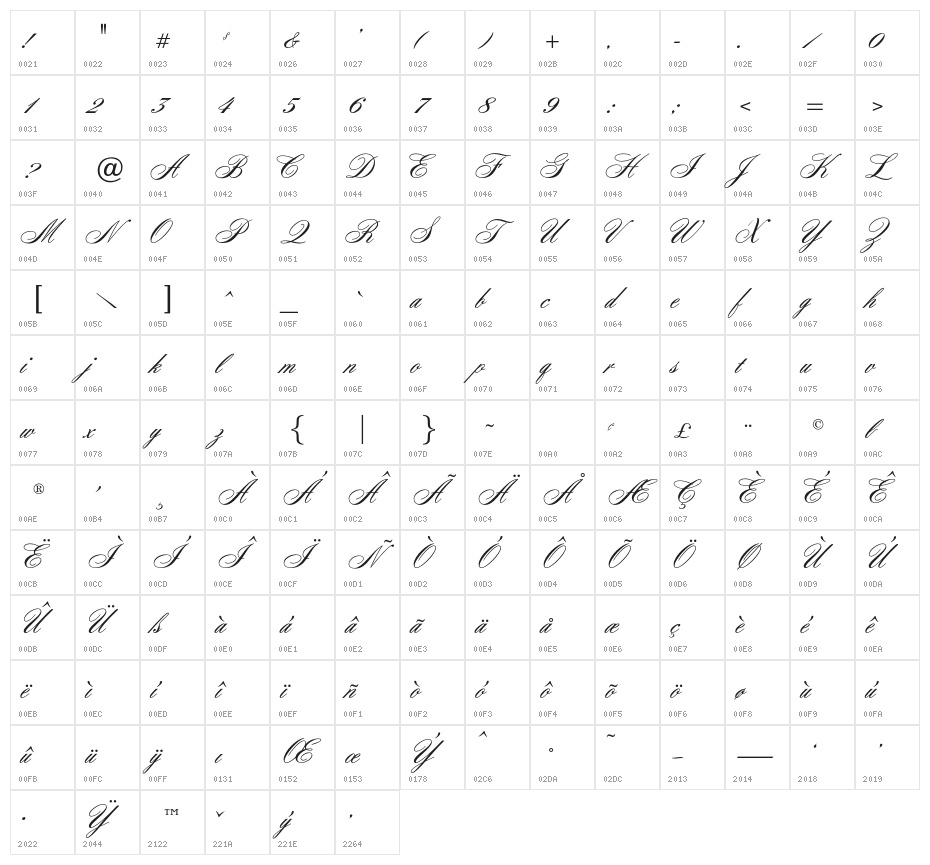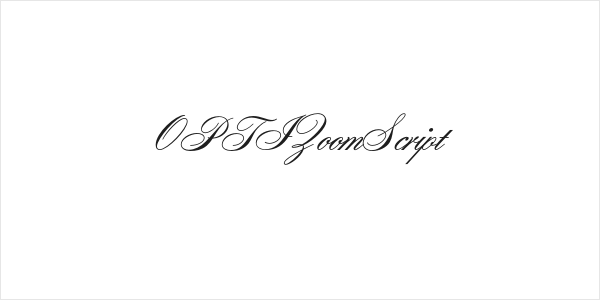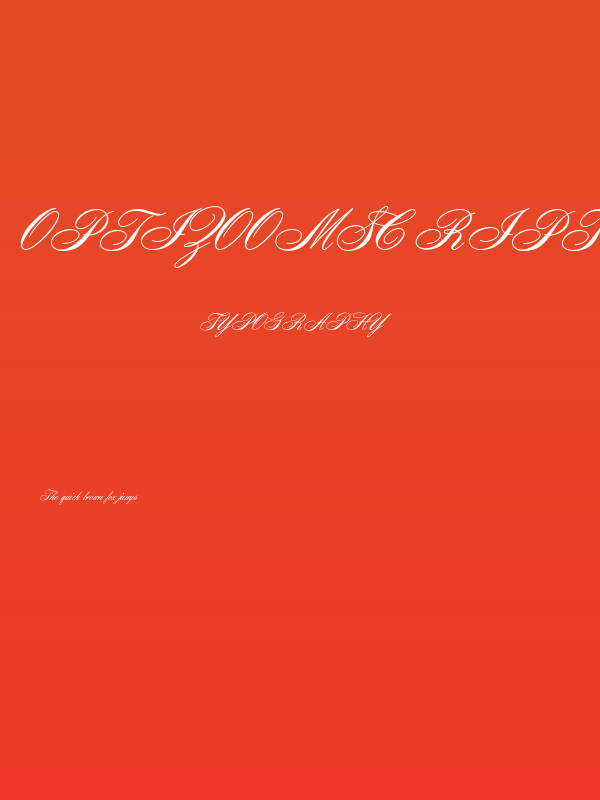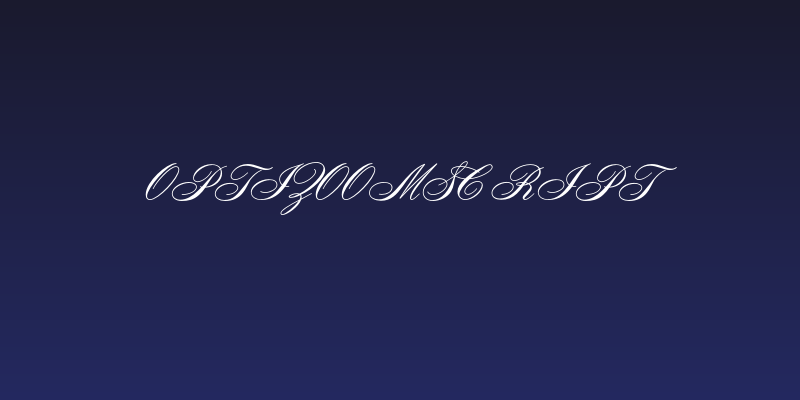
OPTIZoomScript Font
| Kategorien | Script |
| Gesamtstil | Classic |
| Anwendungsfall | Logos, Invitations, Decorative text |
| Vorgeschlagene Projekte | Ideal for wedding invitations, elegant branding, formal event programs, and decorative signage. |